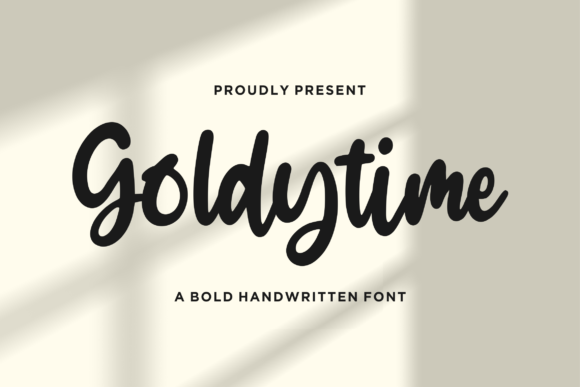
Dive into the world of enchantment with Goldytime Font, a captivating script font that captures the essence of joy and wonder. Designed with meticulous care, each letter dances across your screen, leaving a trail of elegance and charm. Let Goldytime be your muse, transforming your creative projects into captivating masterpieces.
Indulge in the whimsical beauty of Goldytime, a font that mirrors the innocence and playfulness of childhood. Its delicate strokes and flowing curves create a sense of magic, making it an ideal choice for children's invitations, greeting cards, and playful designs. Let Goldytime add a touch of enchantment to your projects and transport your audience to a realm of pure imagination.
Goldytime is not just a font; it's an experience. Its gentle curves and enchanting details evoke a sense of nostalgia, reminding us of handwritten letters and childhood stories. With Goldytime, you can create designs that resonate with your audience, capturing their hearts and sparking their imagination. Let Goldytime be the key to unlocking your creativity and leaving a lasting impression on your readers.